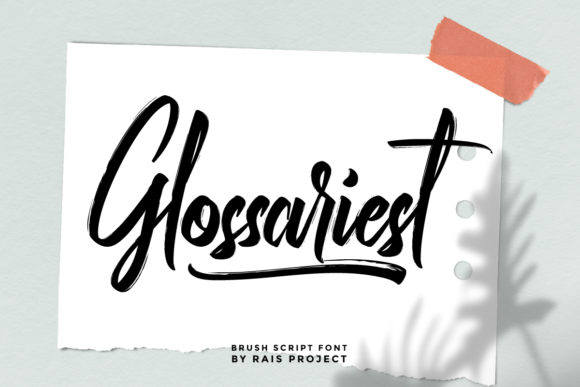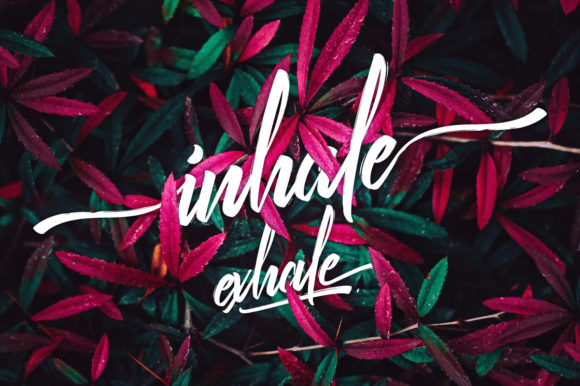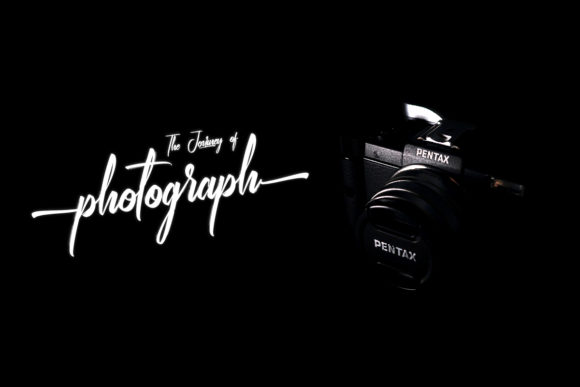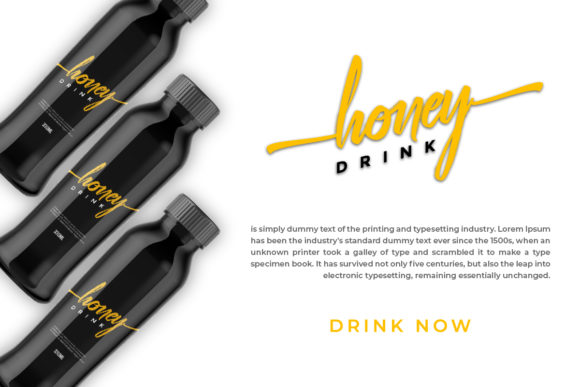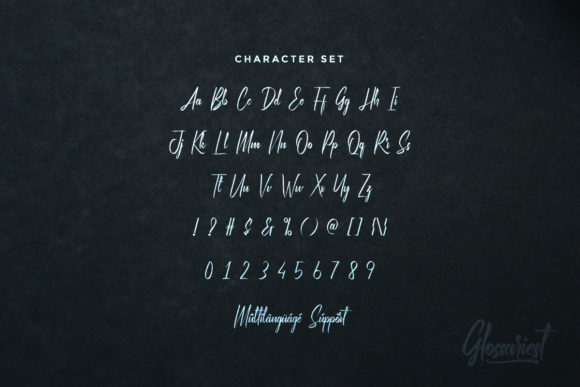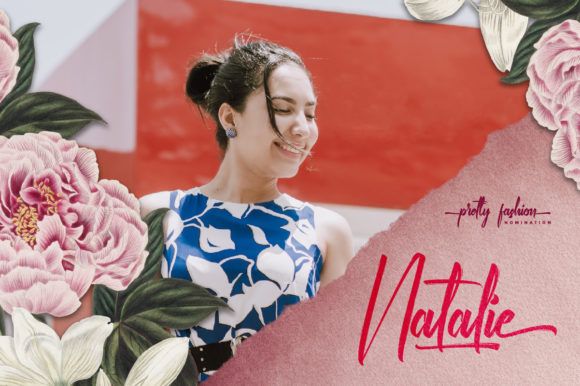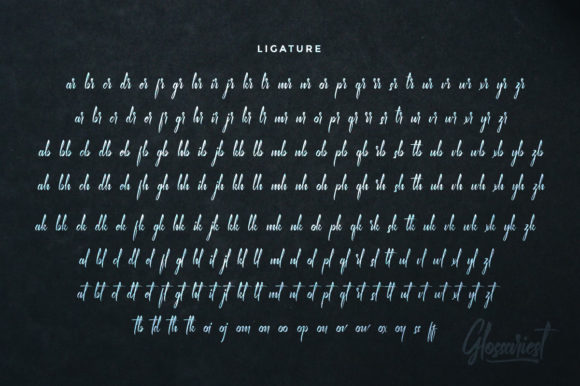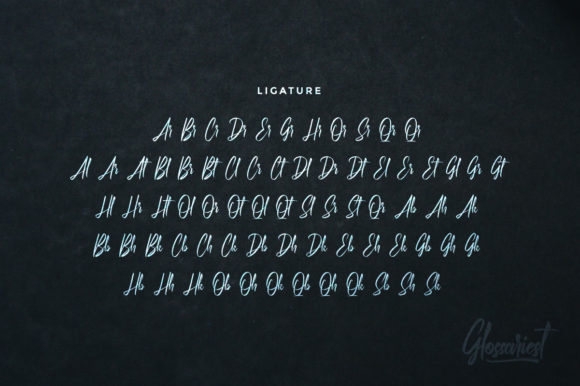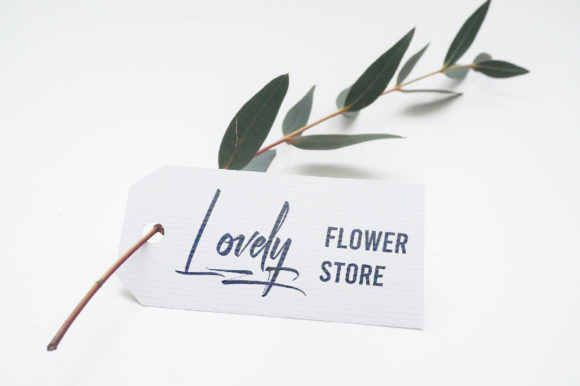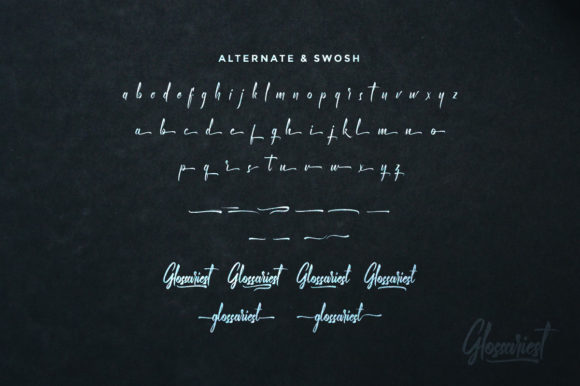
Glossariest Font
About Glossariest Font
Glossariest is a stunning and bold handwritten font that is specifically designed to bring a stylish touch to your headlines and logotype projects. With its powerful and dynamic appearance, this font exudes confidence and strength, making it the perfect choice for creating impactful designs.
The bold and expressive characters of Glossariest make a strong statement, instantly capturing the attention of viewers. Its bold strokes add a sense of energy and vigor to your text, allowing it to stand out and make a lasting impression.
When used in headlines, Glossariest brings a sense of grandeur and sophistication to your designs. Whether it’s for magazine covers, posters, or website headers, the bold and stylish look of this font elevates the visual impact of your headlines, making them more eye-catching and memorable.
For logotype projects, Glossariest provides a unique and nostalgic character that enhances the branding of your business or personal brand. Its bold and expressive letterforms create a strong and recognizable identity, making your logo stand out from the crowd.
The versatility of Glossariest allows it to be used in a wide range of design projects. Whether you’re working on packaging, advertisements, or social media graphics, this font adds a touch of elegance and charm that enhances the overall aesthetics of your designs.
In conclusion, Glossariest is a gorgeous and bold handwritten font that adds a stylish touch to your headlines and logotype projects. Its strong and dynamic appearance exudes confidence and charisma, making it a perfect choice for creating impactful designs. Whether used in headlines, logotypes, or various design projects, Glossariest brings a nostalgic character and elegance that elevates the visual appeal of your creations. Embrace the bold and expressive look of Glossariest to create designs that leave a lasting impression on your audience and stand out with confidence.